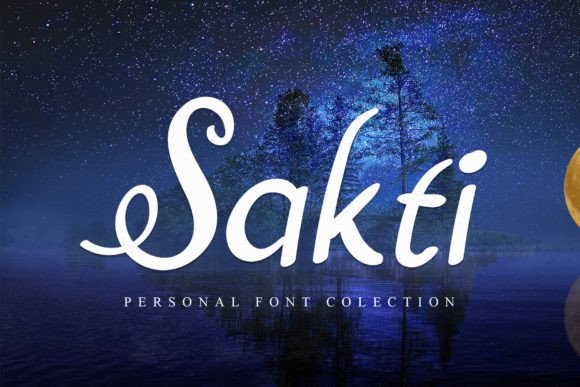
Introducing Sakti Font: The Epitome of Elegance and Originality in Script Typography
In a world clamoring for authenticity, Sakti Font emerges as a beacon of individuality, inviting you to infuse your designs with a touch of captivating charm. This exquisite handwritten font, crafted with a natural, hand-made touch, transcends the boundaries of ordinary typography, beckoning you to embark on a journey of creative expression like never before.
With Sakti Font, your words will dance upon the page, carrying a melody of emotions and captivating the hearts of your audience. Its varied baseline mimics the fluidity of human handwriting, imbuing your designs with an organic, personal feel. Let Sakti Font tell your story in a way that resonates, evoking sentiments of warmth, elegance, and timeless beauty.
From the delicate curves of wedding invitations to the bold statements of billboards, Sakti Font adapts seamlessly to a myriad of design endeavors. Its versatility shines through, whether you're crafting logos that exude professionalism or business cards that leave a lasting impression. Unleash your imagination and watch as Sakti Font transforms your designs into masterpieces that captivate and inspire.
Sakti Font's inherent charm extends to the realm of greeting cards, where heartfelt messages take on a new dimension of eloquence. With each stroke of this font, your sentiments will resonate with a sincerity that touches the soul. Let Sakti Font carry your words of love, gratitude, or congratulations, leaving an indelible mark on the hearts of those you cherish.
Experience the transformative power of Sakti Font today and elevate your designs to new heights of creativity and allure. Let your imagination soar as you explore the boundless possibilities of this extraordinary font, and discover the joy of crafting designs that speak volumes.